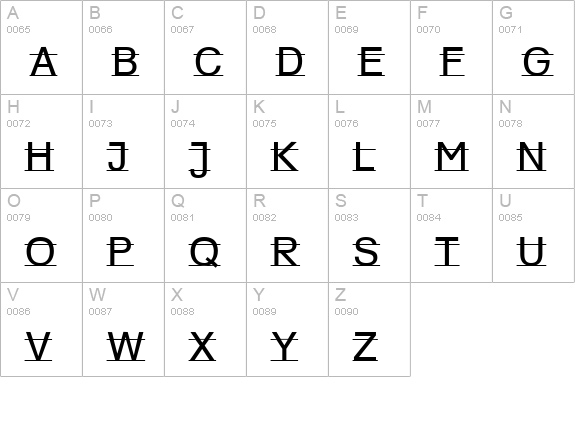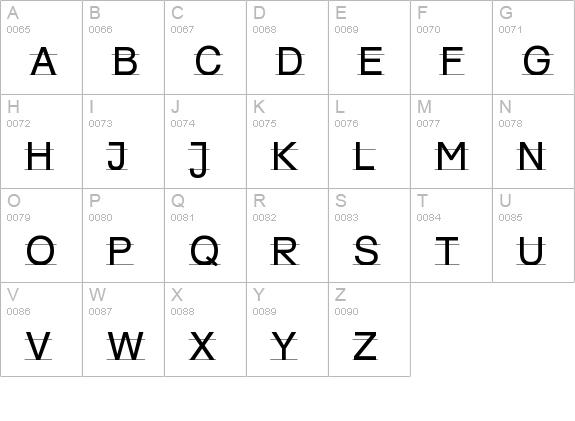
DR BY 2 Font Details
DR BY 2 font is a modern and stylish typeface that exudes elegance and sophistication. Its sleek lines and sharp edges make it perfect for a wide range of design projects, from branding to editorial design. The font features a unique combination of geometric shapes and bold strokes, giving it a distinct look that is sure to catch the eye. One of the best things about DR BY 2 font is that it is available for free download at FontsMarket.com. This means that you can easily access this stunning font and use it in your projects without having to worry about any additional costs. Whether you are a professional designer or a hobbyist looking to add a touch of sophistication to your work, DR BY 2 font is a fantastic choice that won't break the bank. Add a touch of elegance to your designs with DR BY 2 font, and see for yourself the impact that this beautiful typeface can have on your projects. Download it for free today at FontsMarket.com and start creating stunning designs that are sure to impress.